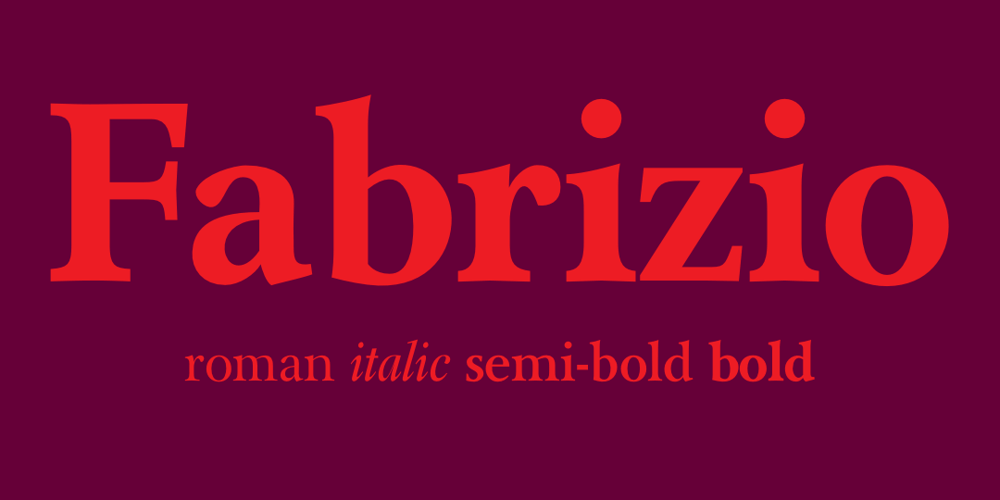
Fabrizio Font Family was designed by Ari Rafaeli and published by ARTypes. Fabrizio contains 20 styles and family package options. The new Fabrizio™ types, designed by Ari Rafaeli, have made their first appearance in Saggi di Letteratura Italiana: Da Dante per Pirandello a Orazio Costa, by Lucilla Bonavita, printed at Pisa in March 2016 by Fabrizio Serra Editore for whom the type was specially designed. The types are now offered for general sale. Each style (roman, small capitals, italic, semi-bold, bold) contains Cyrillic and ‘polytonic’ Greek letters and letters for many European languages (Czech, Hungarian, Icelandic, Lettish, Polish, Romanian, Serbian, Ukrainian, Welsh etc.), non-kerning fs, long ſ, ligatures and fractions. Alternative forms are supplied in ‘B’ versions of each style. A set of swash letters and sets of superiors, inferiors, fractions and phonetic letters are also offered. Two ‘Special’ fonts (roman and italic) containing special accents, letters for transliteration, Vietnamese letters, mathematics signs and symbols, arrows, commercial signs, pictograms, figures in circles, scansion marks, braces & benzene rings and the Rafaeli-Meruba Hebrew letters, as well as Latin, Cyrillic and Greek letters, are included in the Fabrizio family.